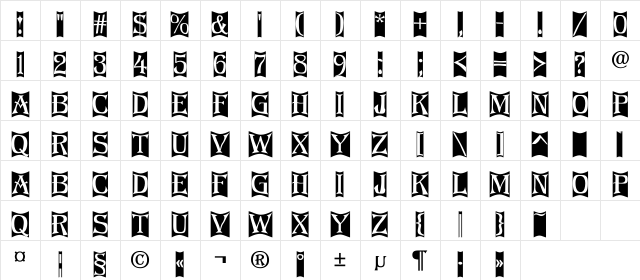
a_AlgeriusCmFtz1 Regular Free Font
a_AlgeriusCmFtz1 Regular
Design Context for a_AlgeriusCmFtz1
a_AlgeriusCmFtz1 is a composed and adaptable typeface that performs quietly and consistently across a wide range of design contexts.